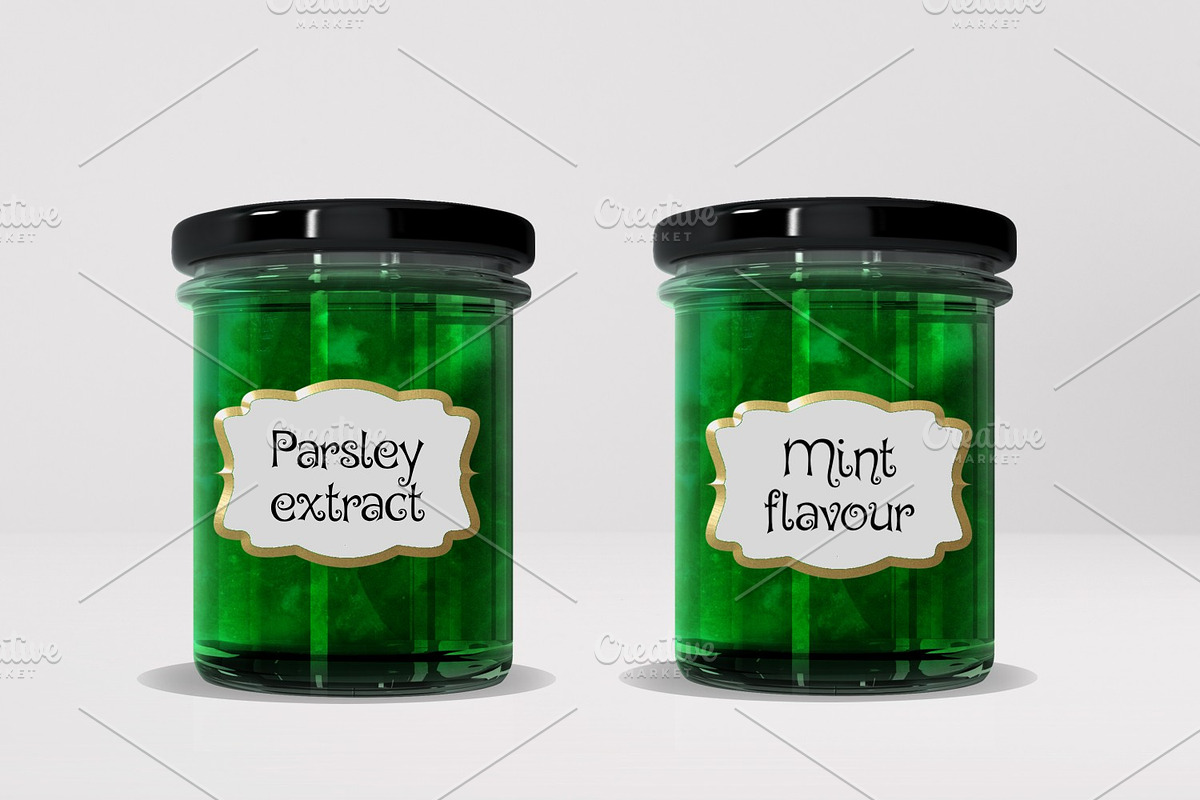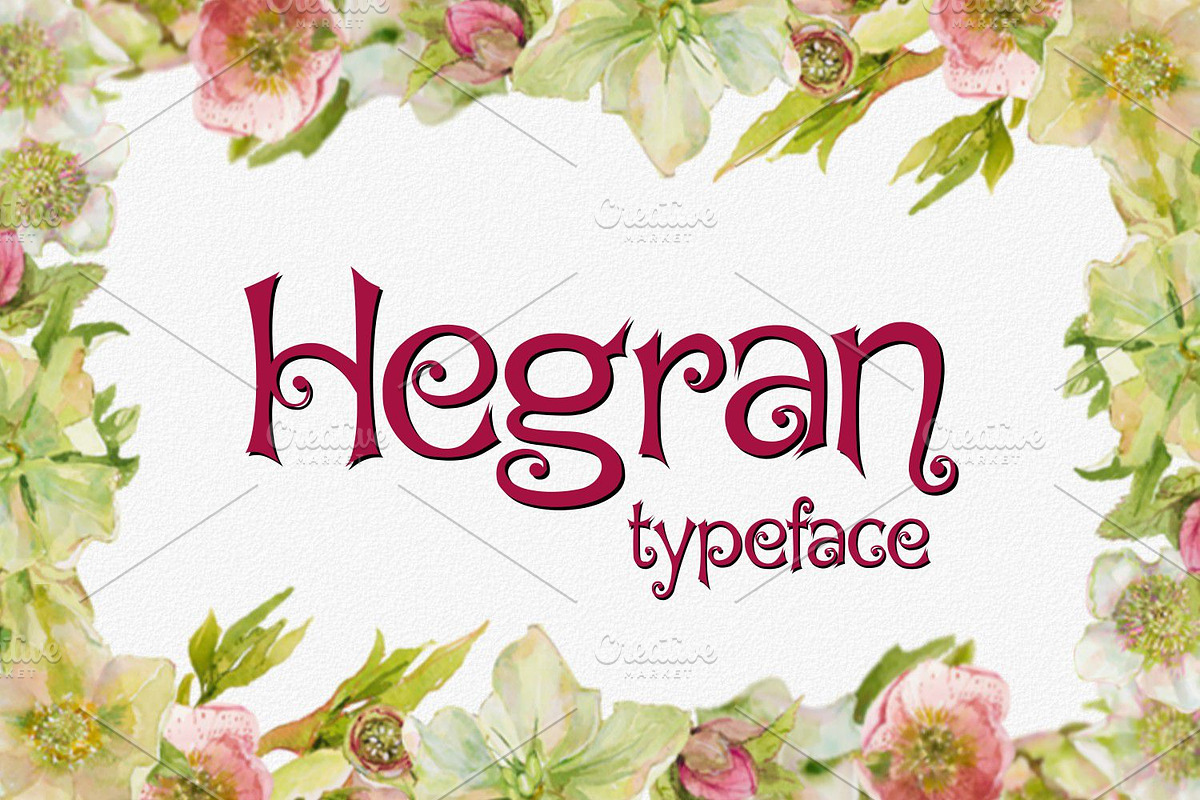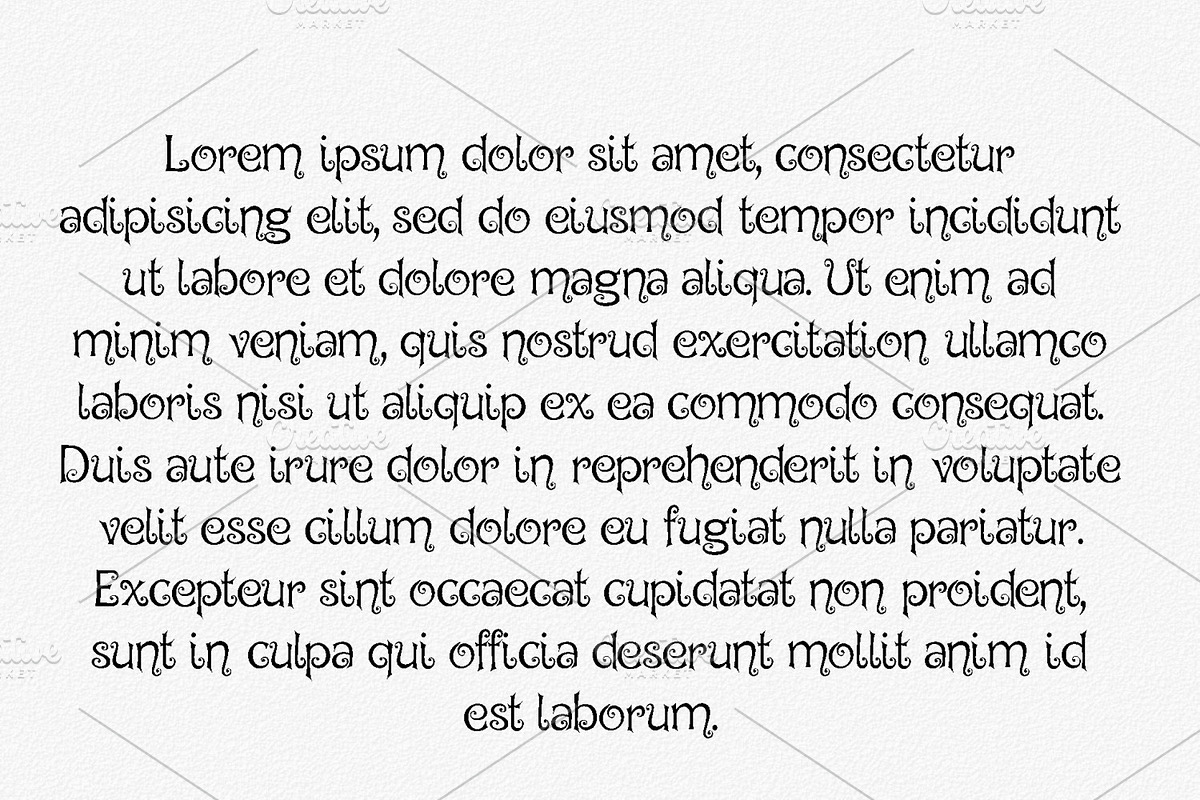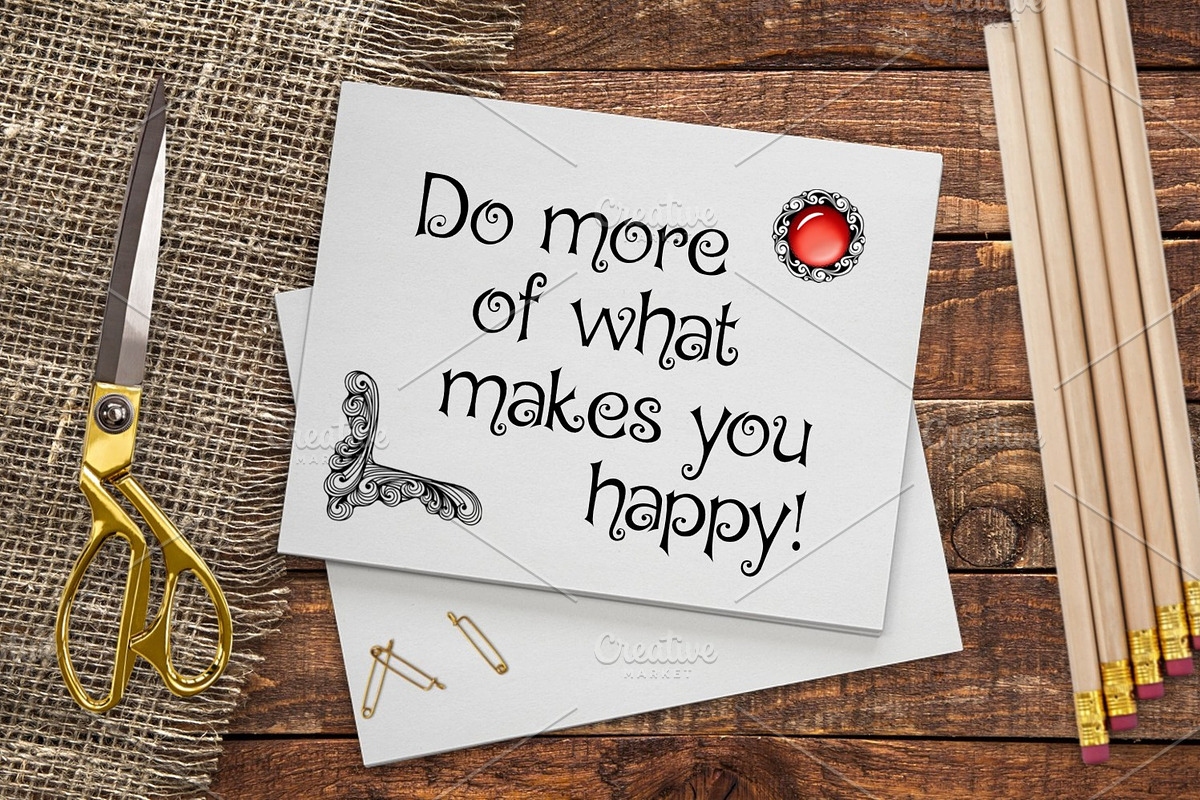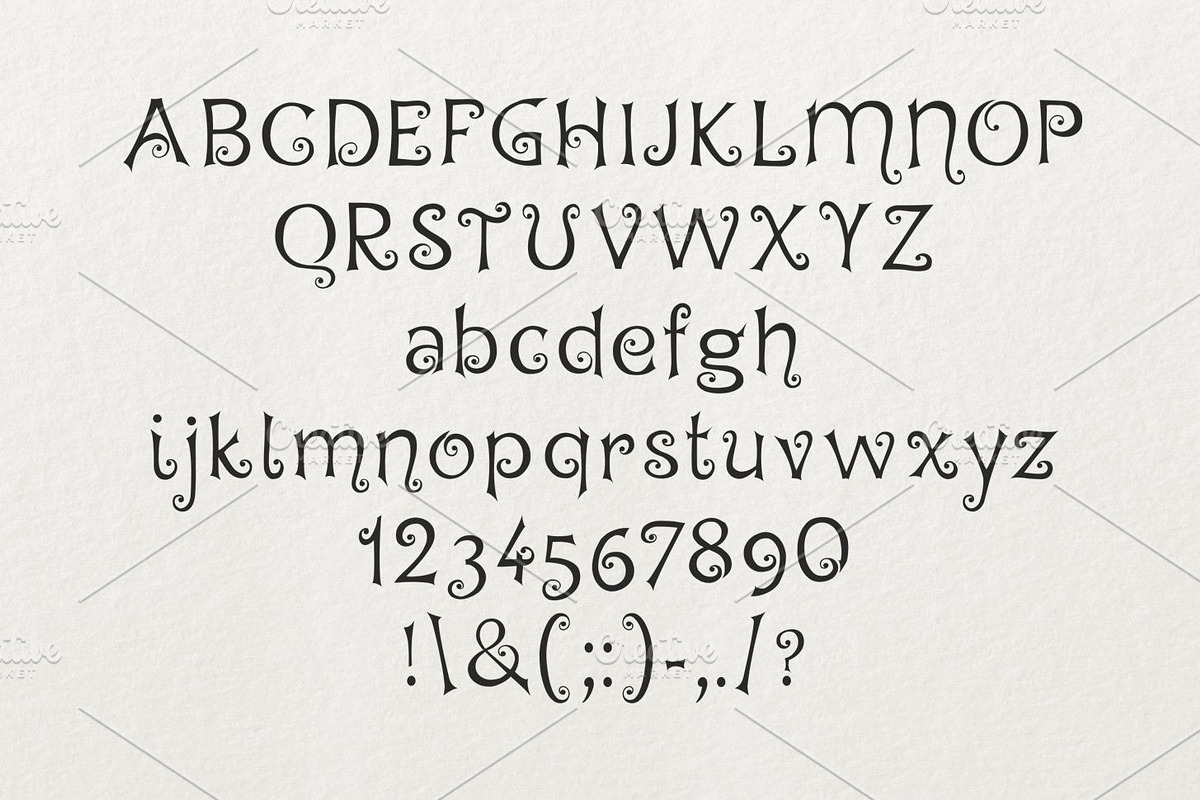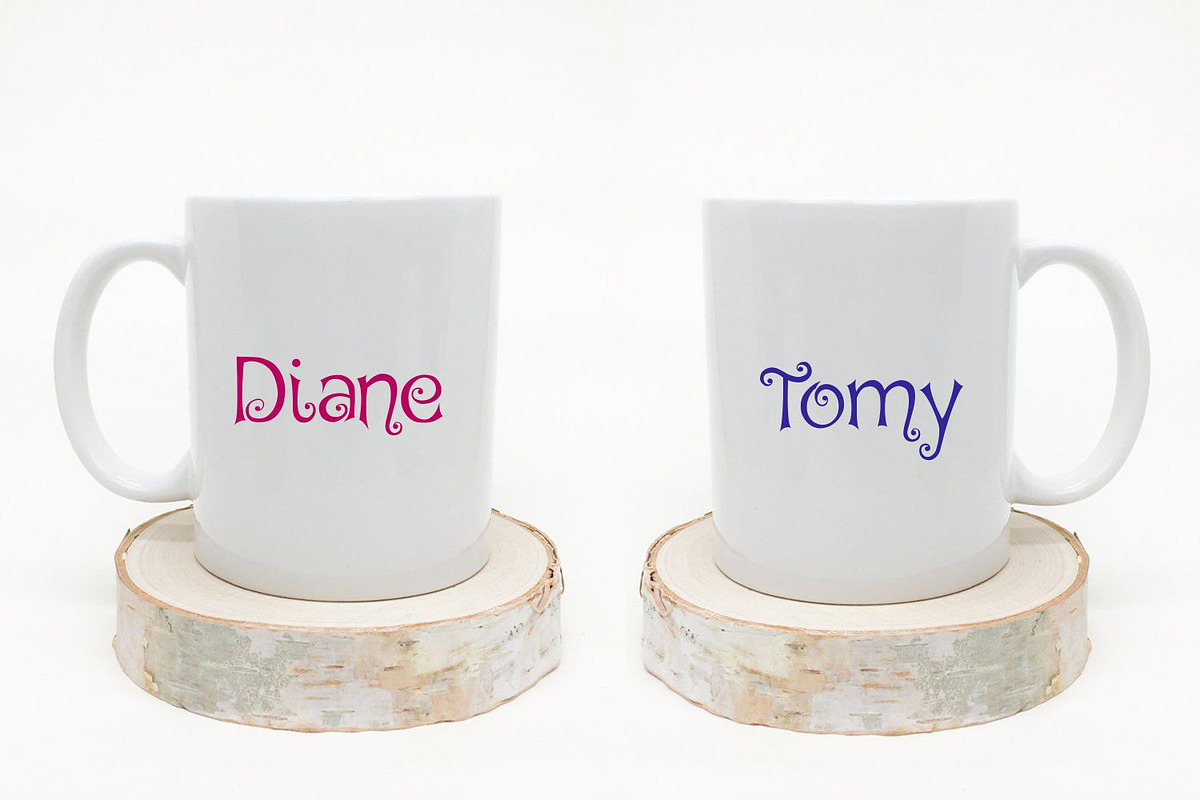
Hegran
Hegran is a fun hand drawn typeface suitable for labels, t-shirt design, title, children book cover, and many more!
Hegran by Digital Typeface Studio fits naturally into Branding, posters, packaging, typography.